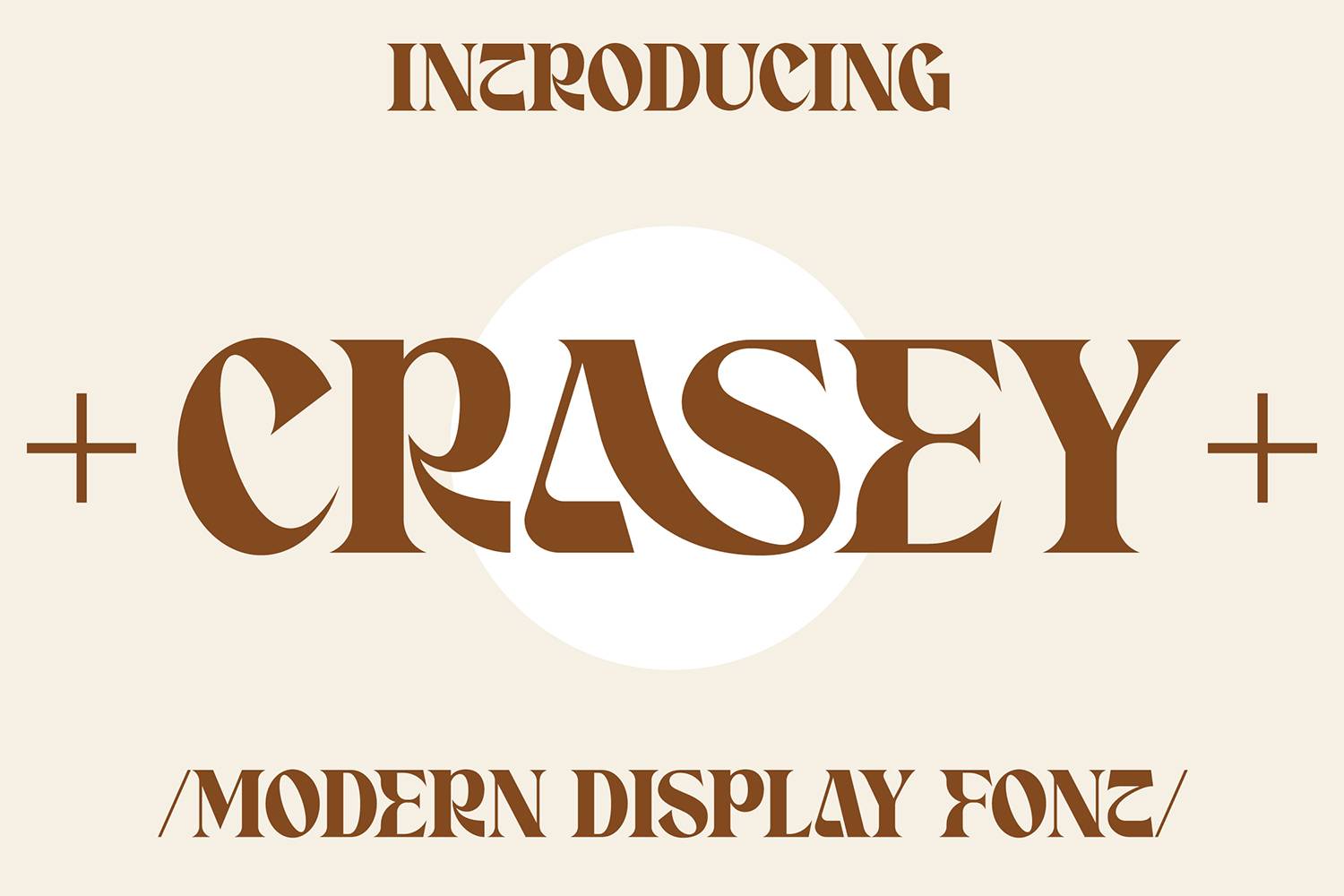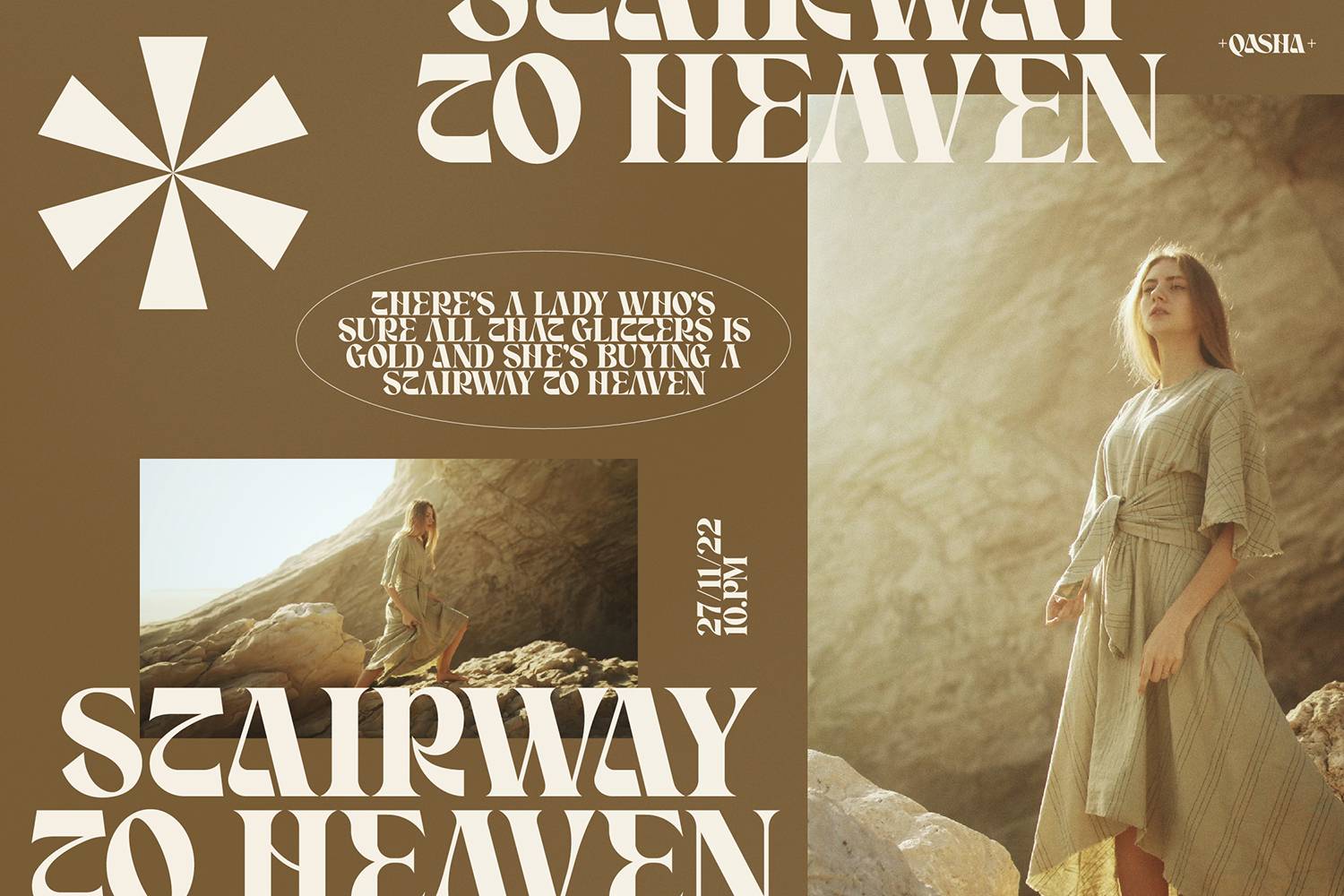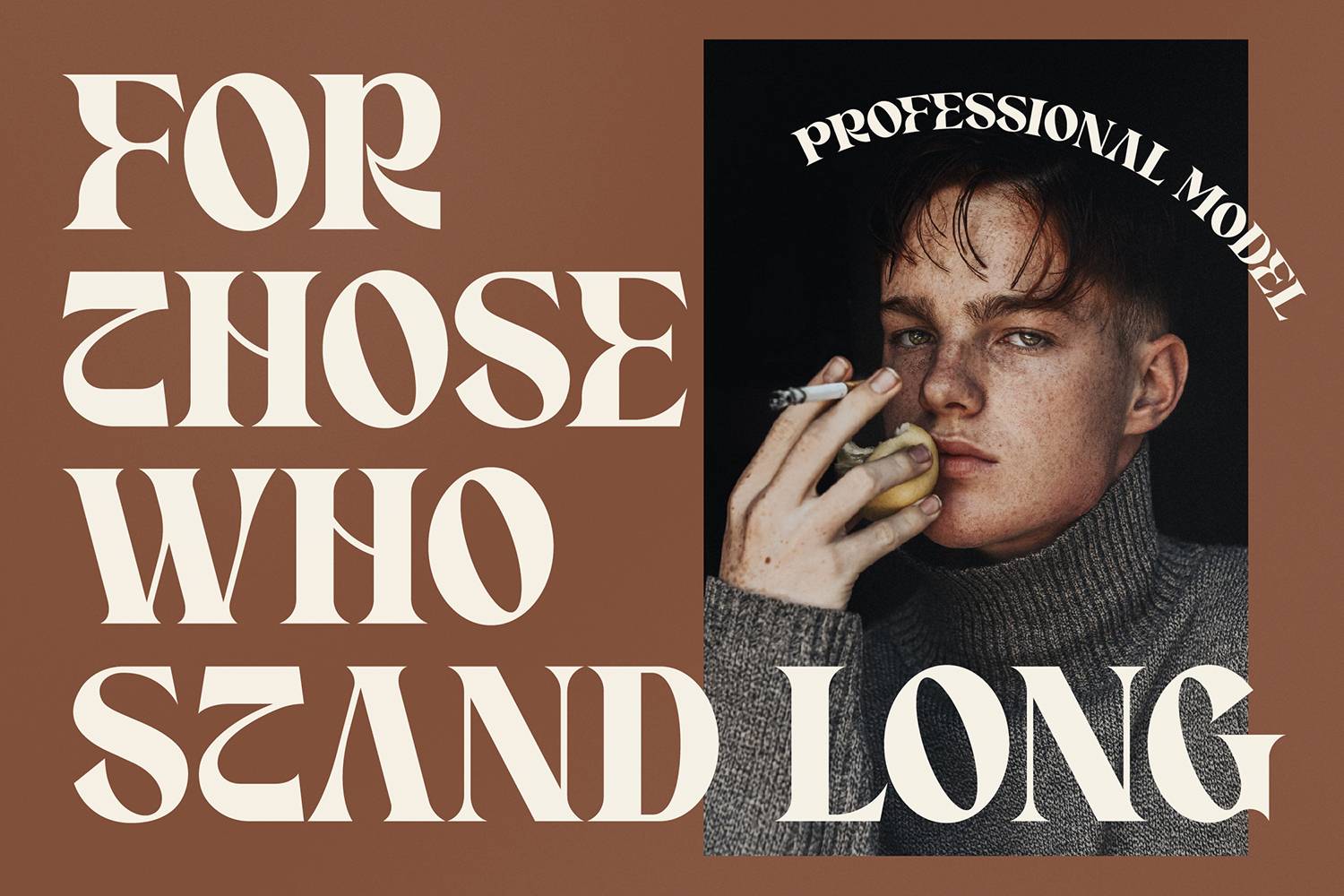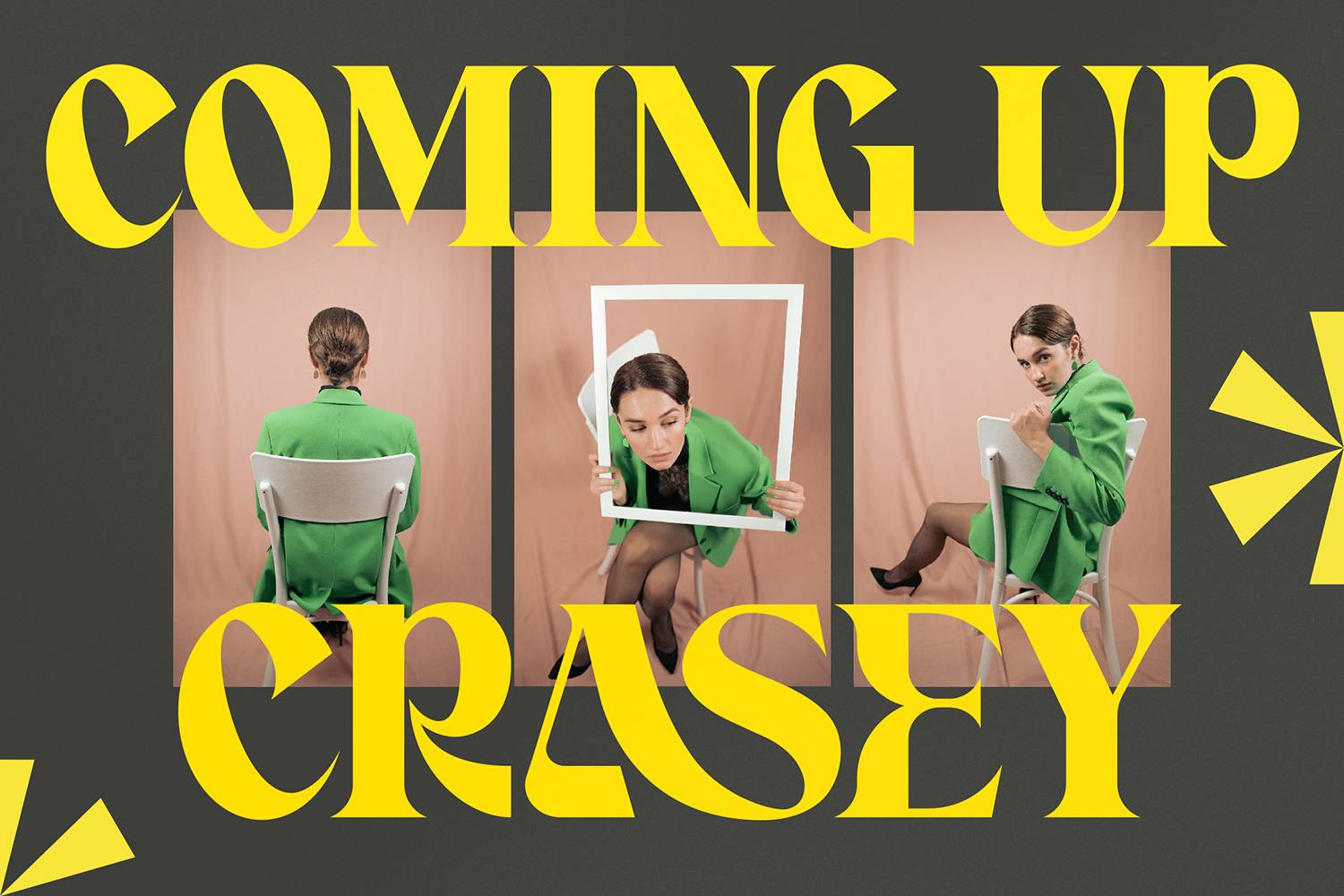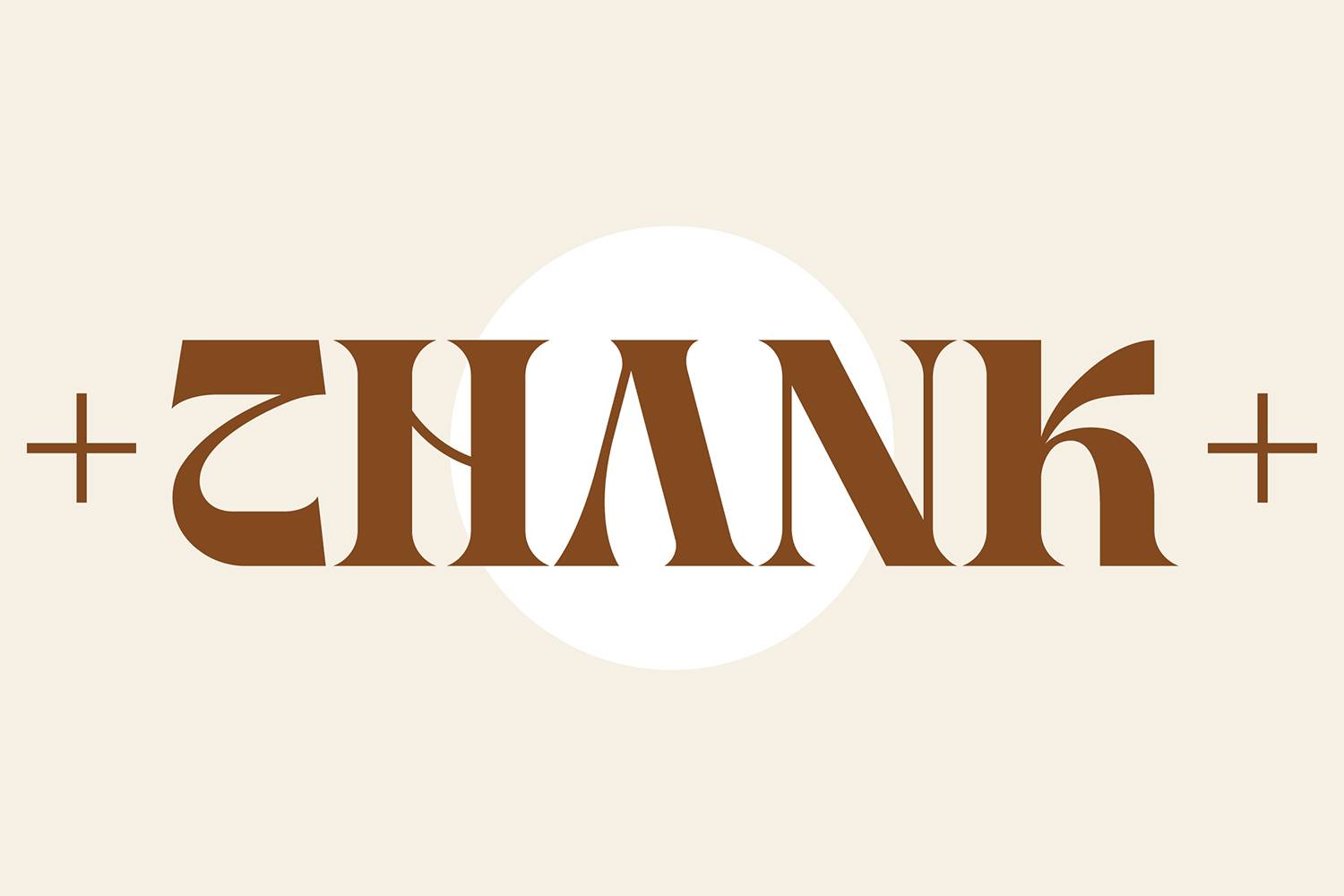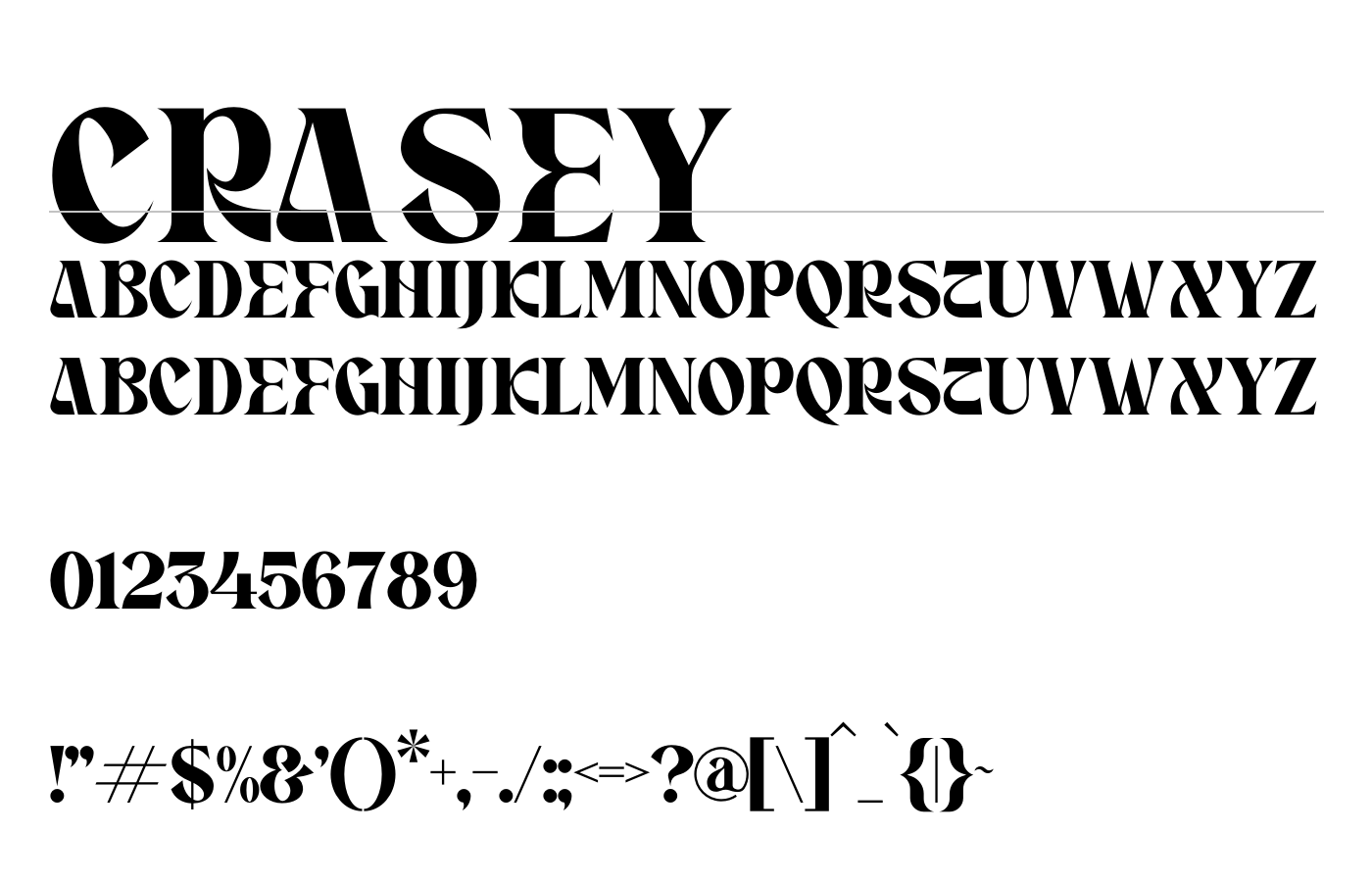
Crasey is a bold, high-contrast serif font with a modern Didone style, featuring sharply bracketed serifs and striking geometric shapes that give it a dramatic, editorial flair. Its condensed width and unique letterforms create a sophisticated, luxurious feel, making it ideal for eye-catching headlines, fashion branding, and stylish packaging where strong visual impact is key.
Crasey Font
About Crasey Font